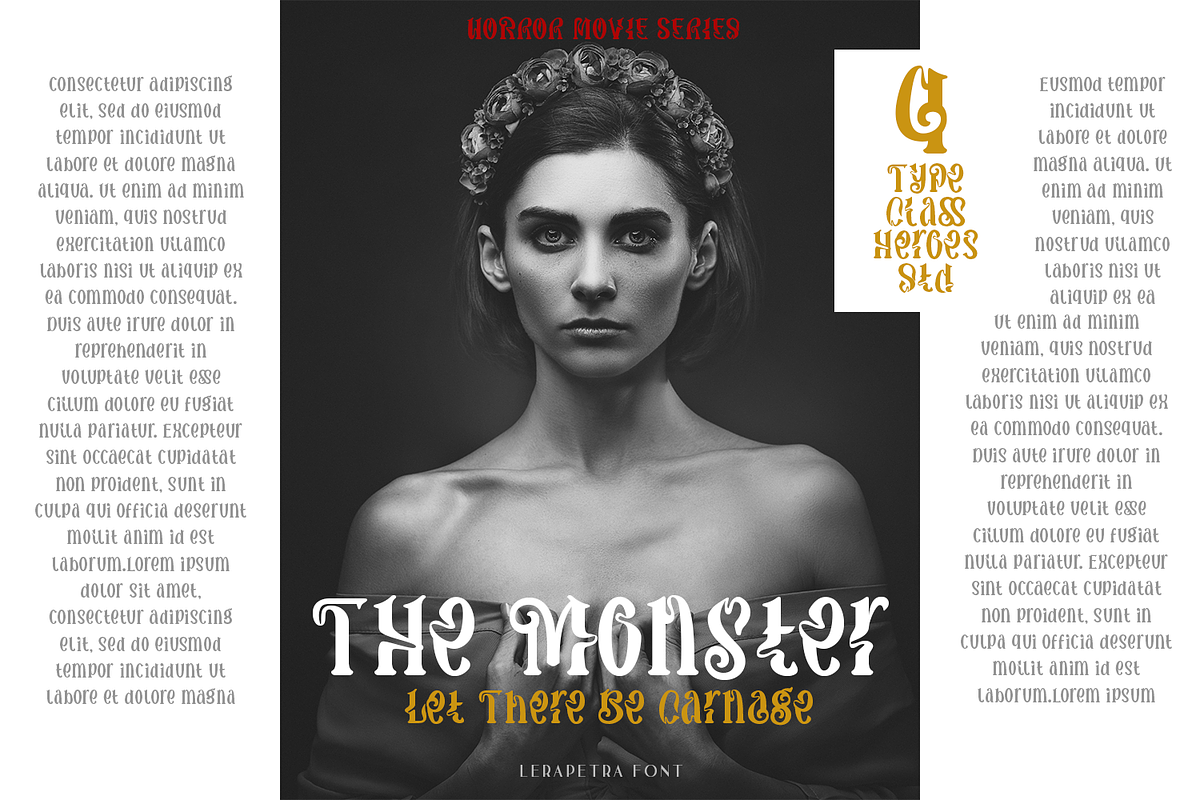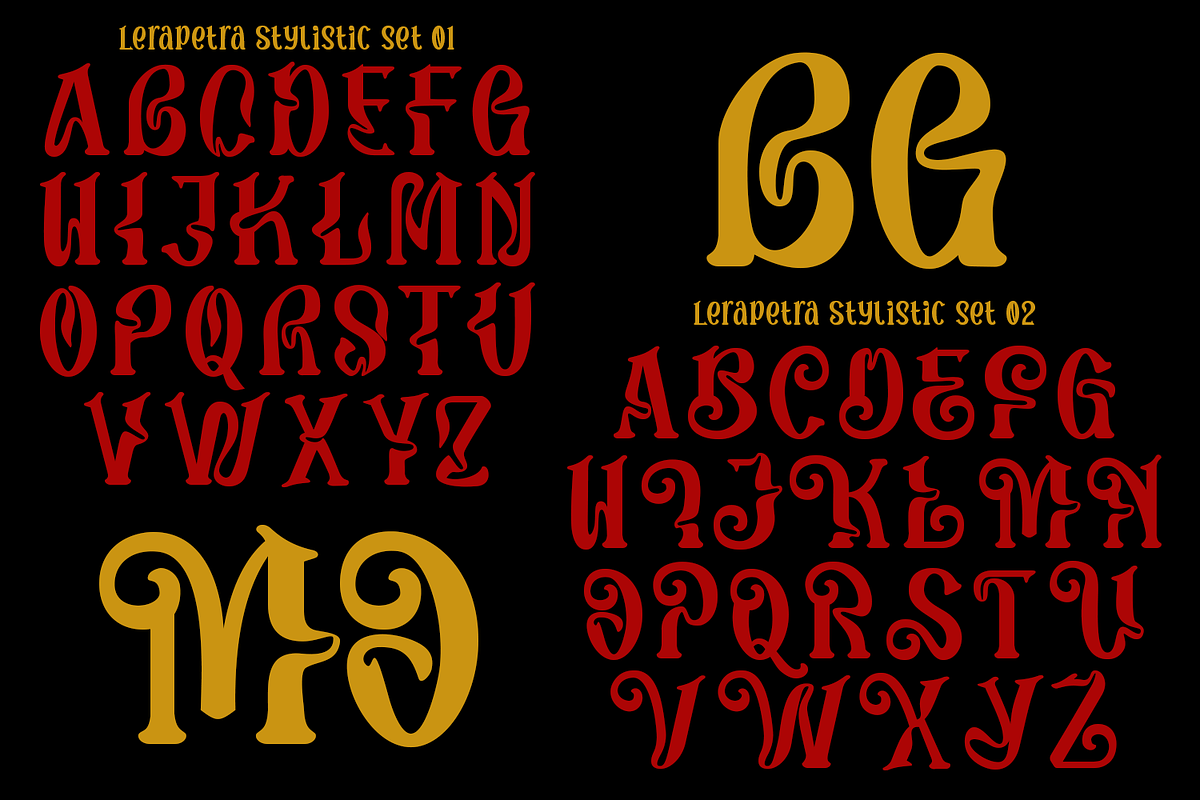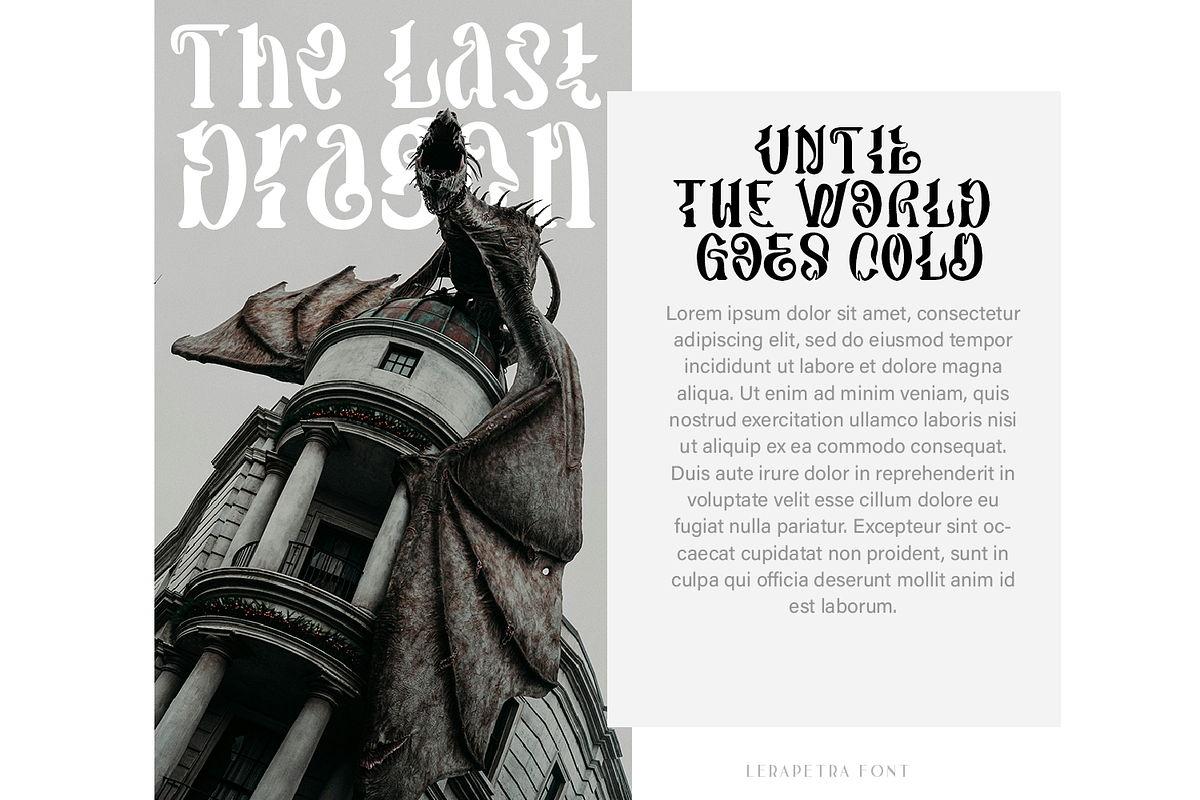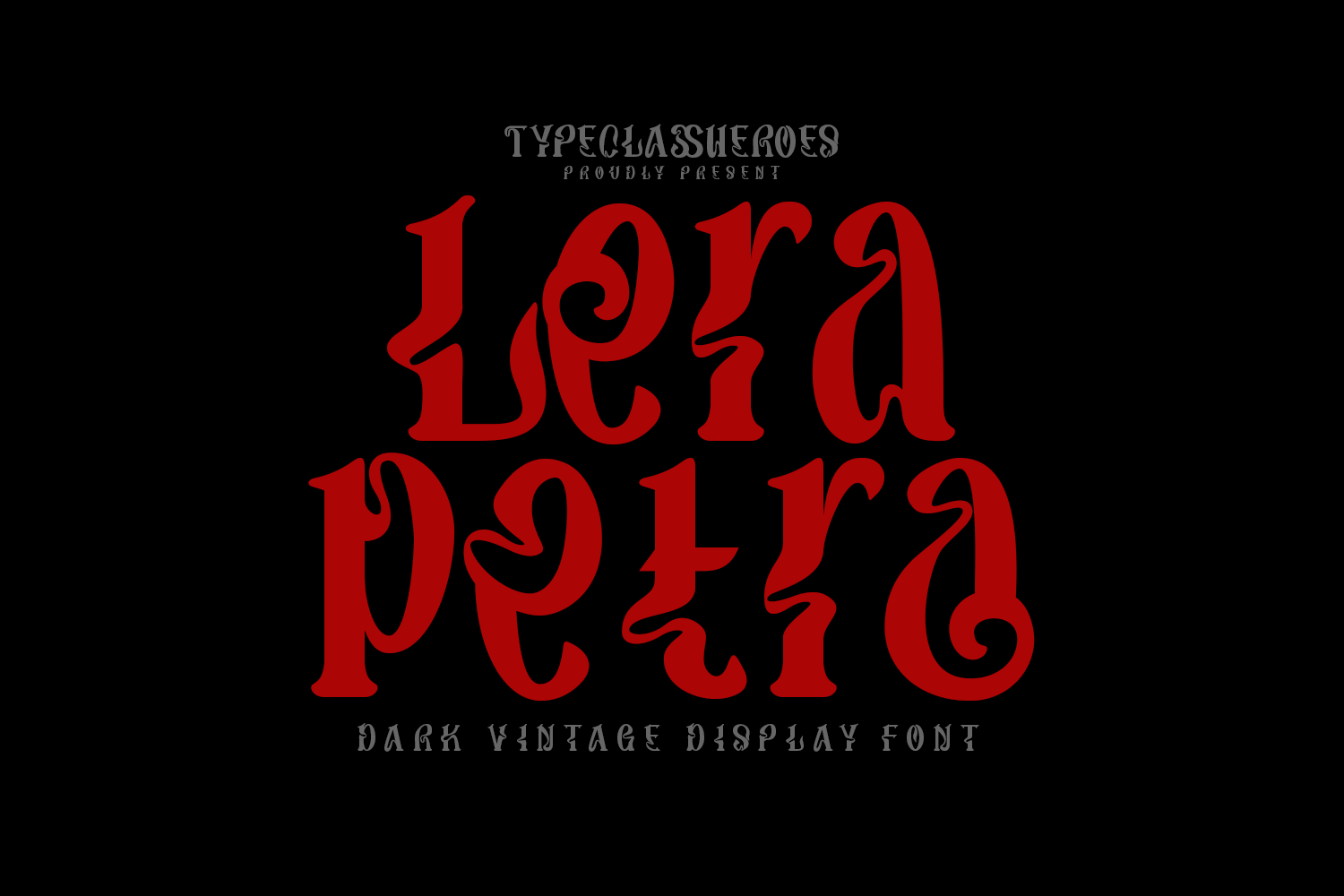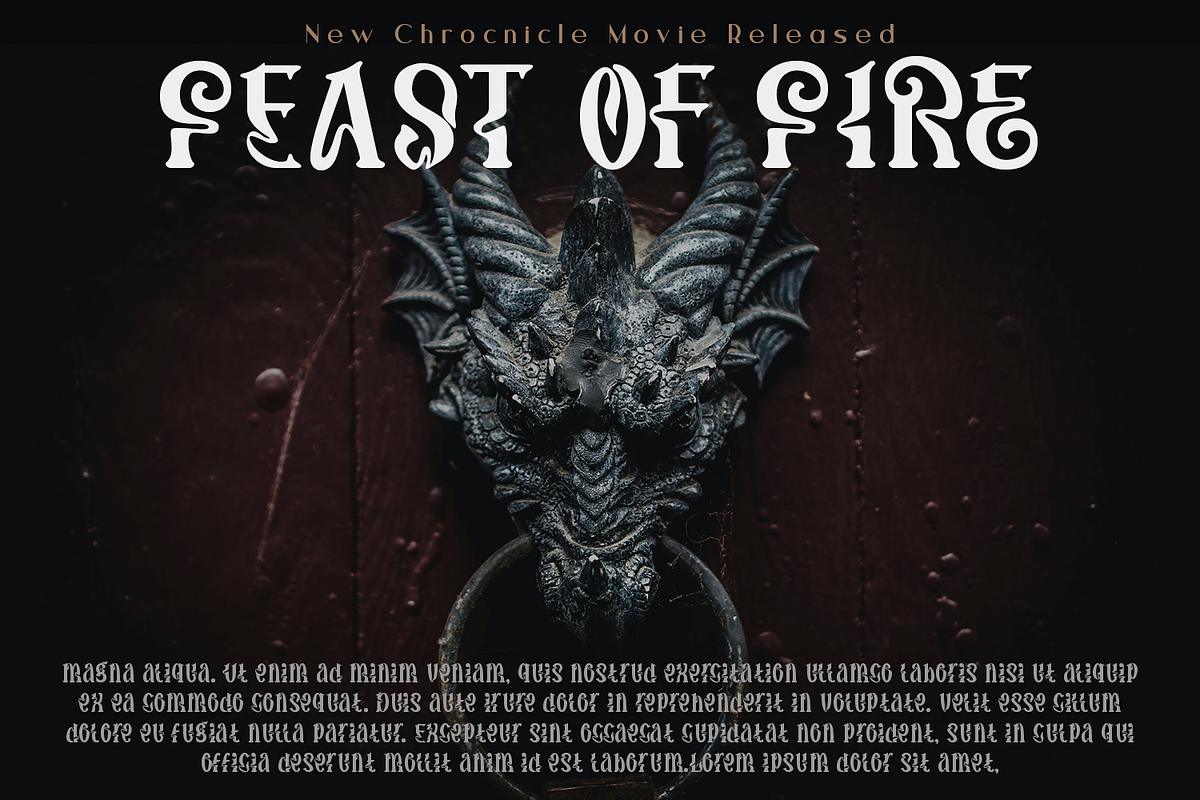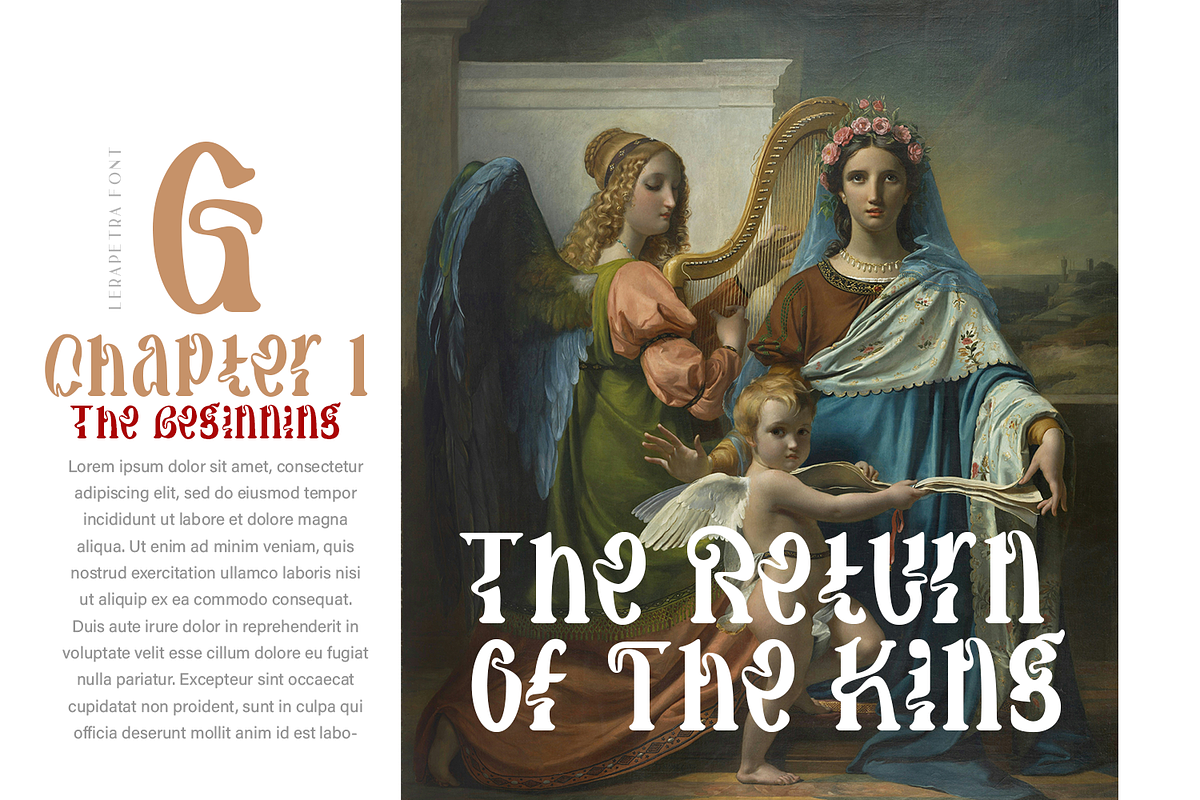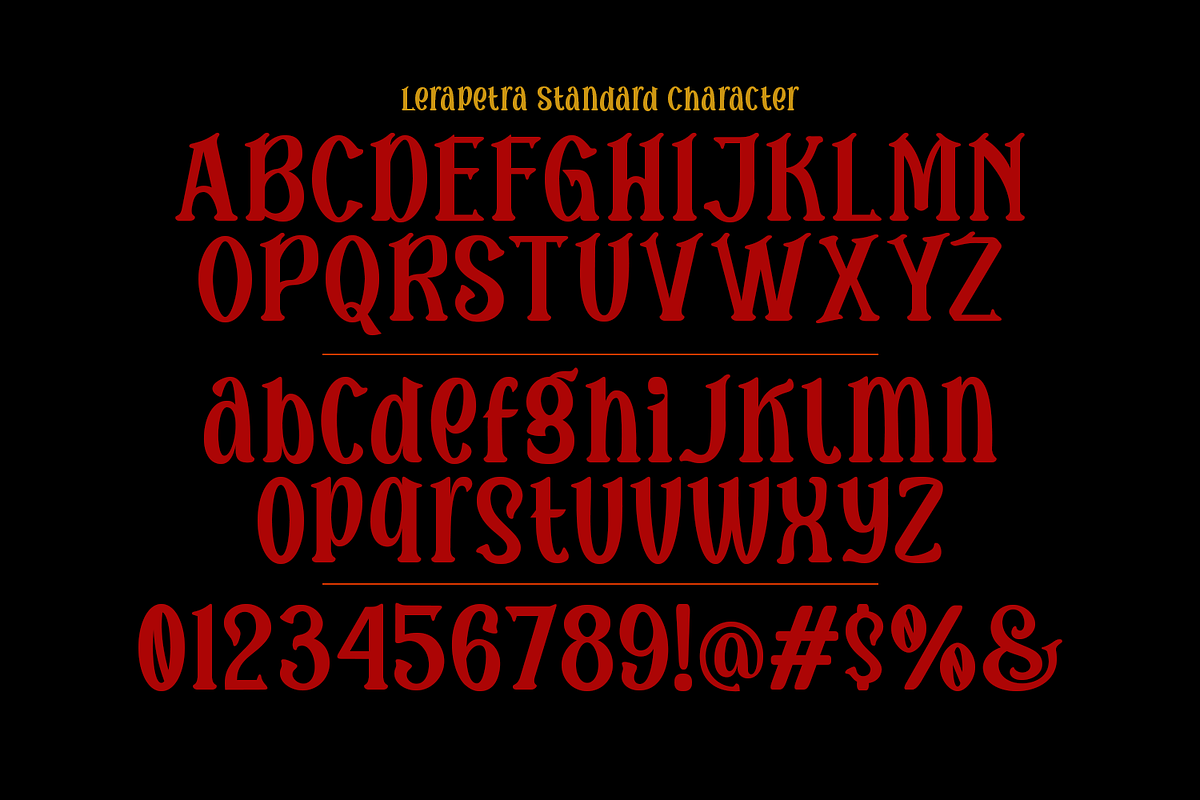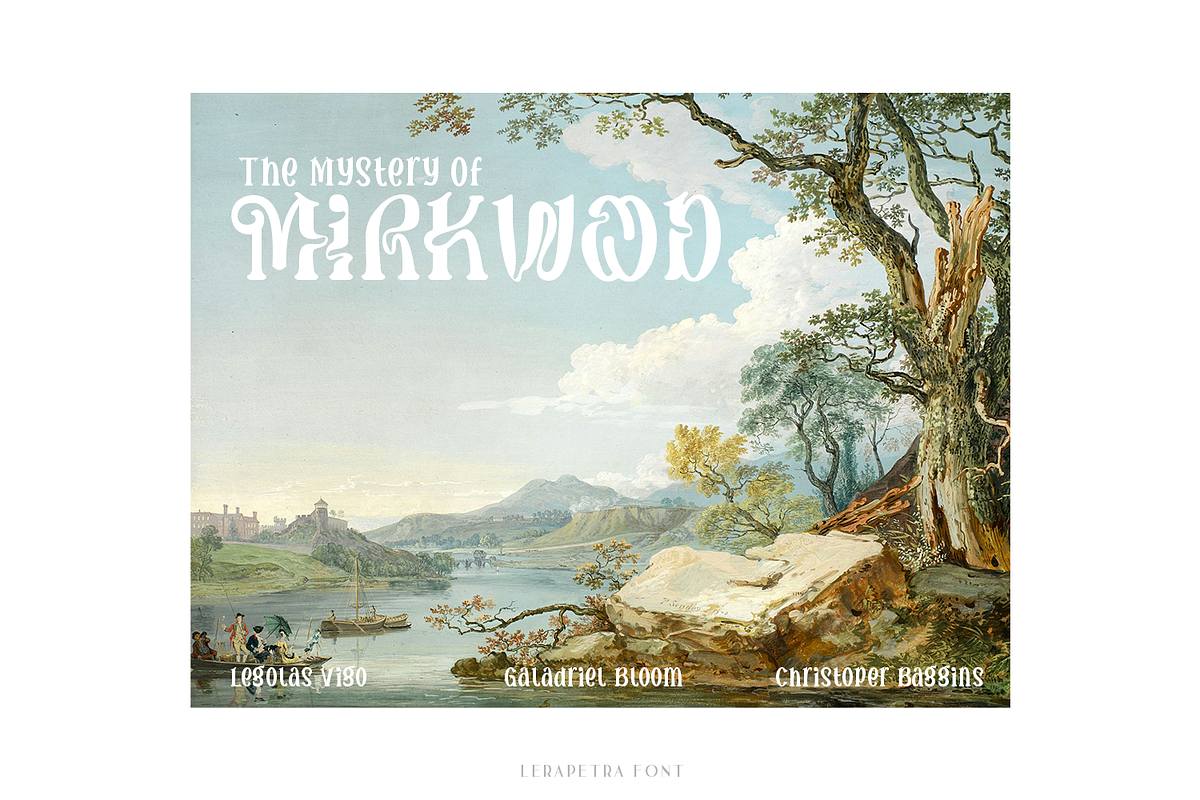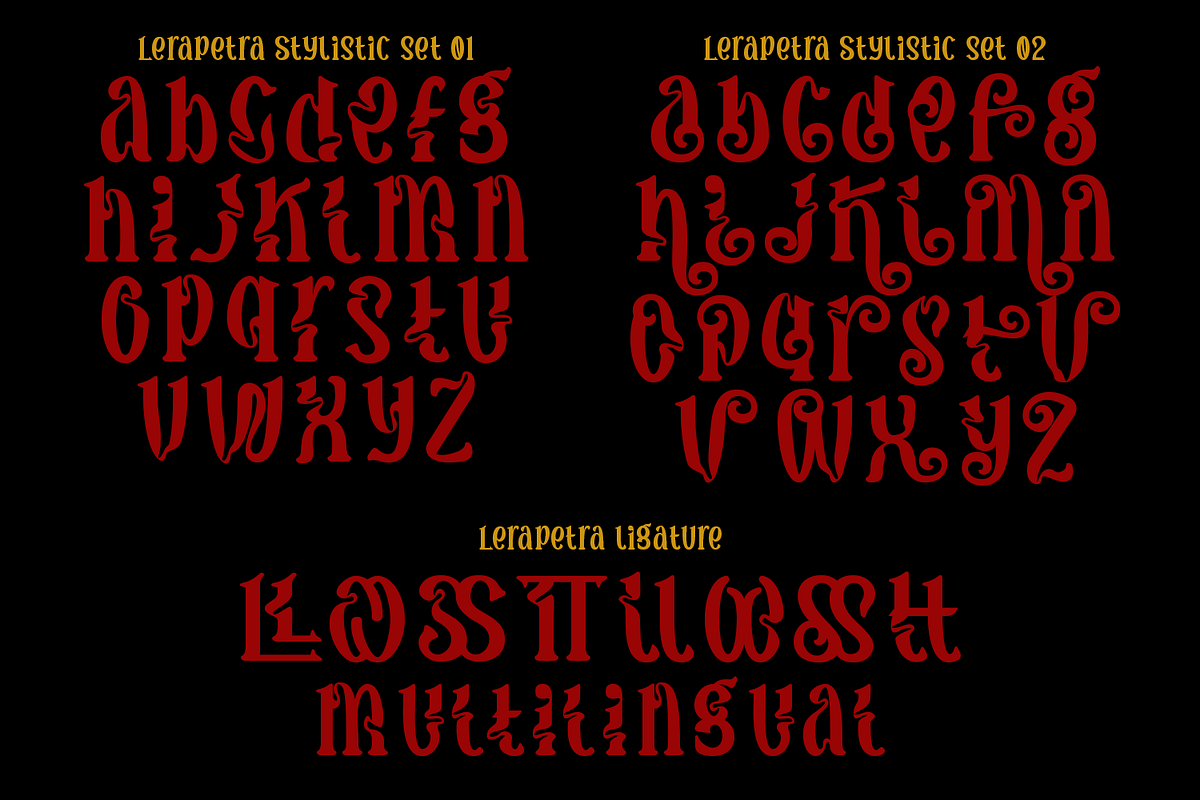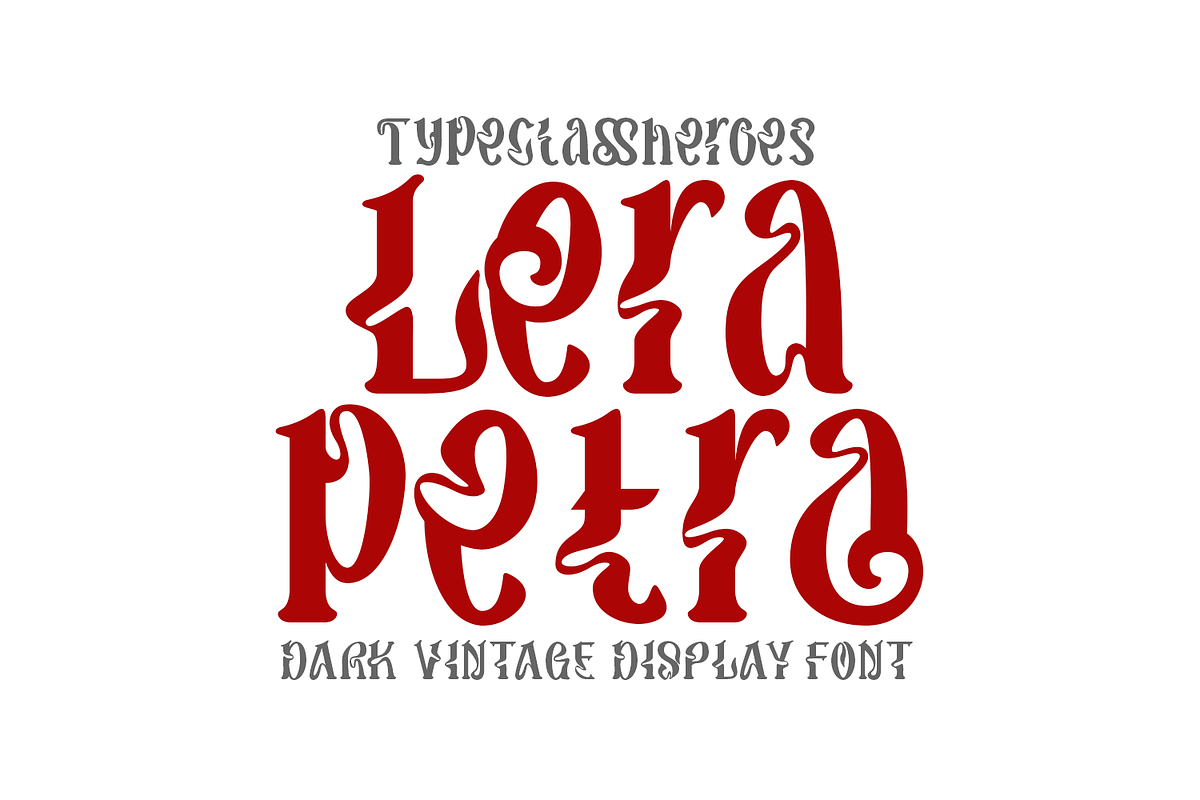
Lerapetra Display Font
Makes this font multi purpose font for a wide range of applications. The design looks very unique and eye catching if it's combined properly. This font is ideal for logos, headlines, and other projects